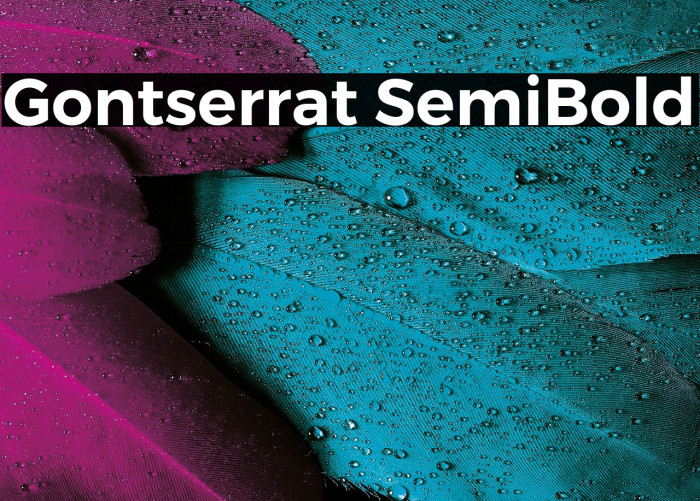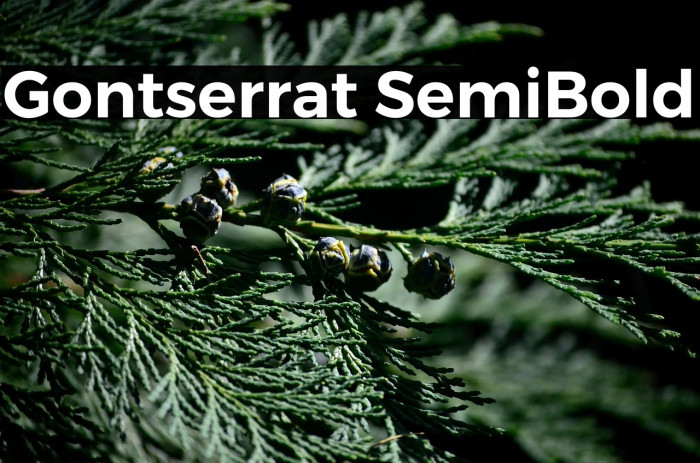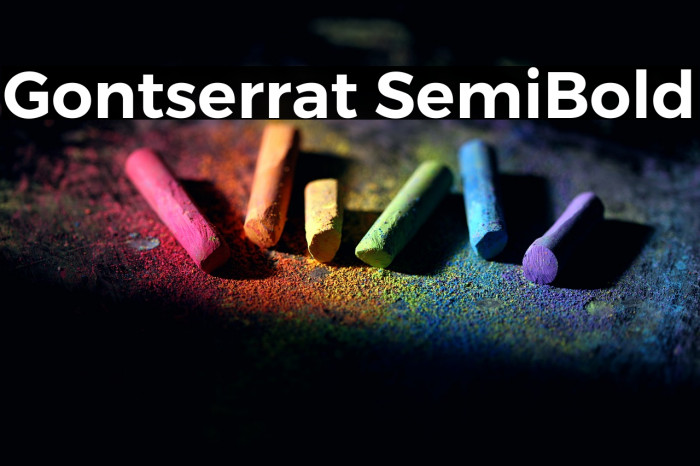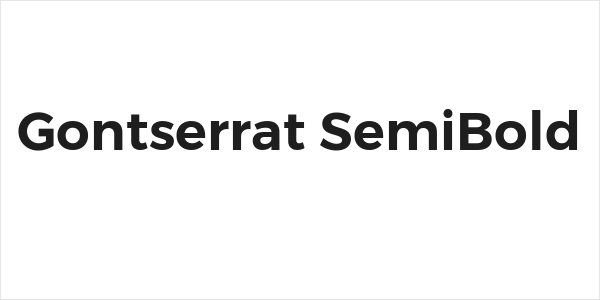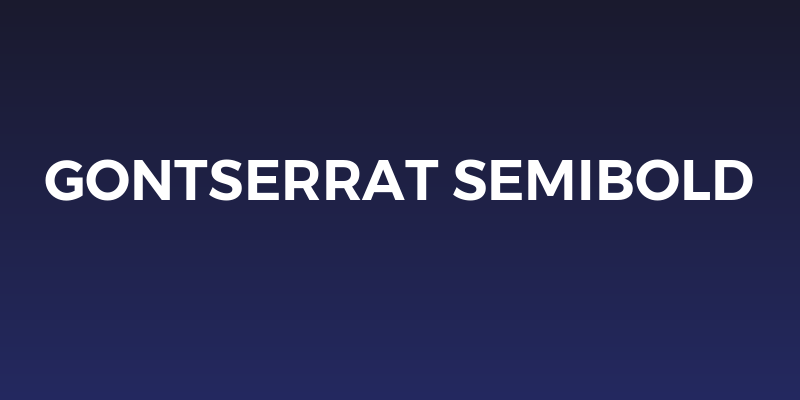
Gontserrat SemiBold Font
Gontserrat SemiBold Description
This typeface features a clean and modern sans-serif design with a geometric structure. The characters are bold and well-defined, offering excellent readability. The uppercase letters are uniform in height, while the lowercase letters maintain a consistent baseline, providing a harmonious appearance. The numerals are clear and distinct, making them suitable for various applications. Special characters are included, enhancing the font's versatility. The overall design is sleek and contemporary, making it ideal for digital and print media.
| Use Case | Headlines, Logos, Digital Media |
| Proposed Projects | Ideal for branding, advertising, web design, and editorial layouts due to its modern and clean appearance. |